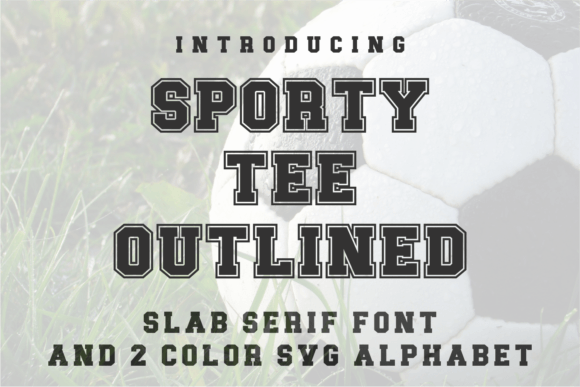
Introducing the Sporty Tee Outlined Font, the ultimate choice for all your college papers and sport-inspired designs. This serif font, created by SVG Cuttables, is more than just a collection of letters – it's a powerful statement that adds a vibrant touch to your projects.
Designed with sports in mind, the Sporty Tee font captures the essence of team spirit, jerseys, leagues, and all things athletic. Its 2-color alphabet allows you to experiment with different combinations, making your designs truly stand out from the crowd. Whether you're creating a movie poster, a documentary, a logo, or even a book cover, this font is your go-to choice.
With its bold and captivating style, the Sporty Tee Outlined Font will elevate your headlines, titles, and any text you want to emphasize. Its unique and eye-catching design will make your audience take notice, leaving a lasting impression.
But it's not just about aesthetics – this font is also incredibly versatile. Perfect for college papers, it adds a touch of professionalism to your academic work. Impress your professors with a font that screams confidence and dedication.
Not only will the Sporty Tee Outlined Font make your designs look amazing, but it will also evoke emotions and spark enthusiasm. It taps into the passion and energy of sports, making it the perfect choice for any project that needs that extra kick.